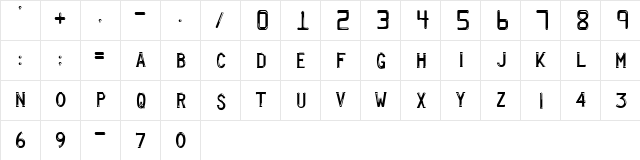
Firstusa Medium
Design Context for Firstusa Typeface
Firstusa takes a measured approach to typography — its balanced proportions and neutral character make it a reliable workhorse for both digital and print work.